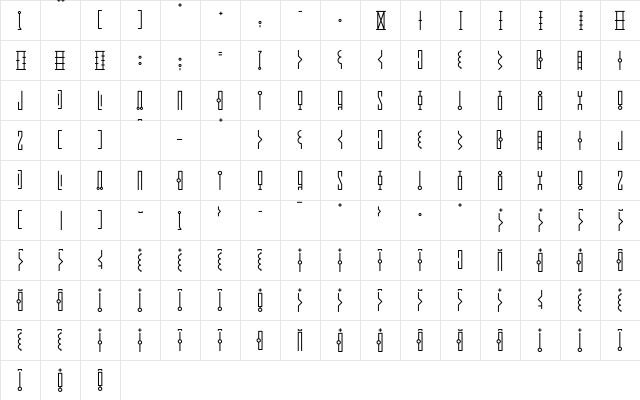
Crypto_Sans Regular
Design Context for Crypto_Sans Typeface
Crypto_Sans offers clean, dependable letterforms without strong stylistic allegiance, making it a practical choice for designers who need flexibility.
Pro Tip: Use Crypto_Sans in both headline and body roles to test its range before committing to a single application.